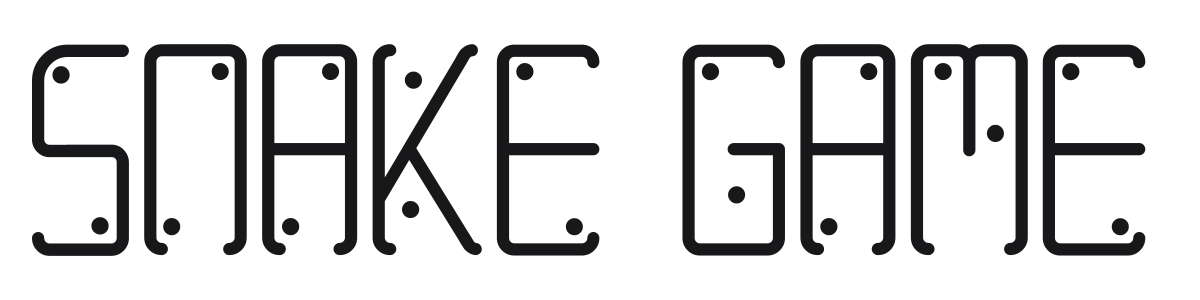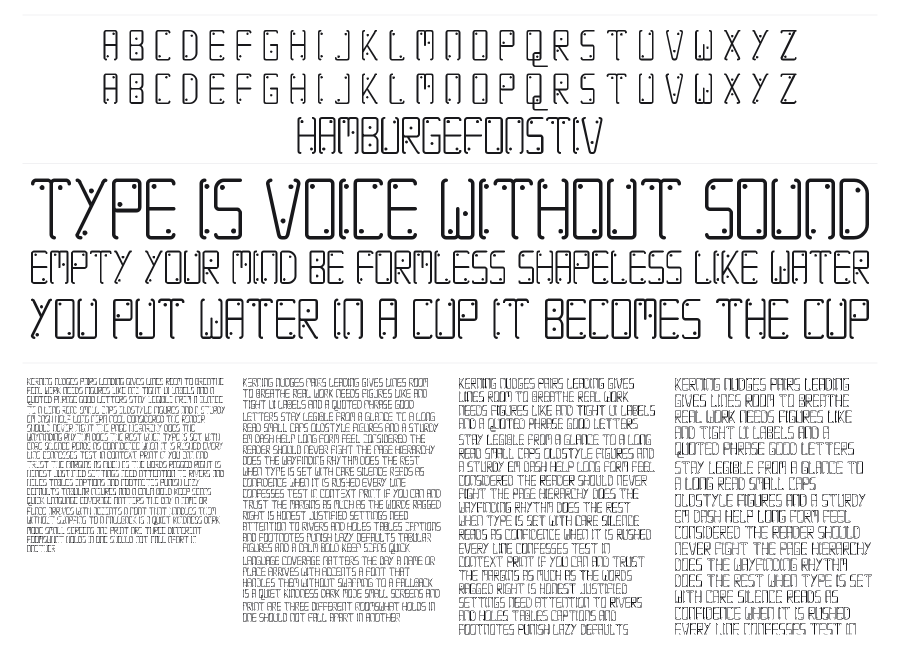
Snake Game
Snake Game is a novelty display font inspired by the classic mobile and arcade snake game, with each character built from rounded rectangular segments and small corner dots that mimic the game's pixel grid. The monoweight strokes and wide proportions give it a clean, graphic quality that reads clearly at large sizes. It carries instant gaming nostalgia without feeling cheap.